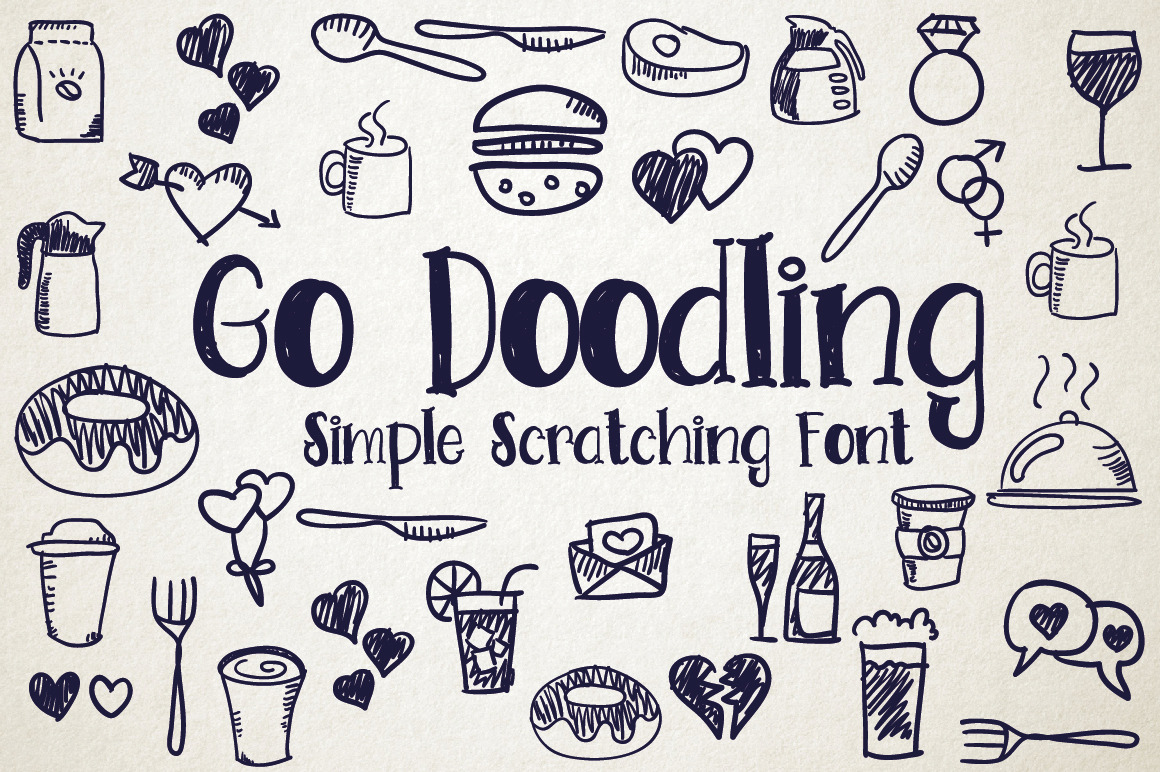
Go Doodling, Scratching Font
Introducing a simple scratch font, Go Doodling is an interesting scratching font to use for your sketch illustration purposes, either for the title, description and content of the image that you created.